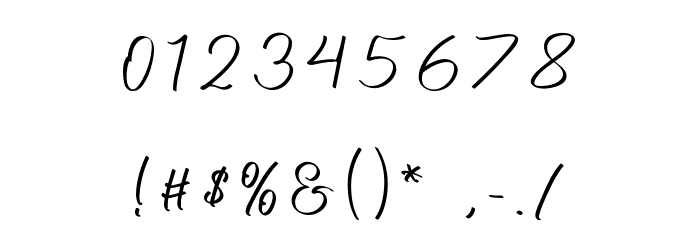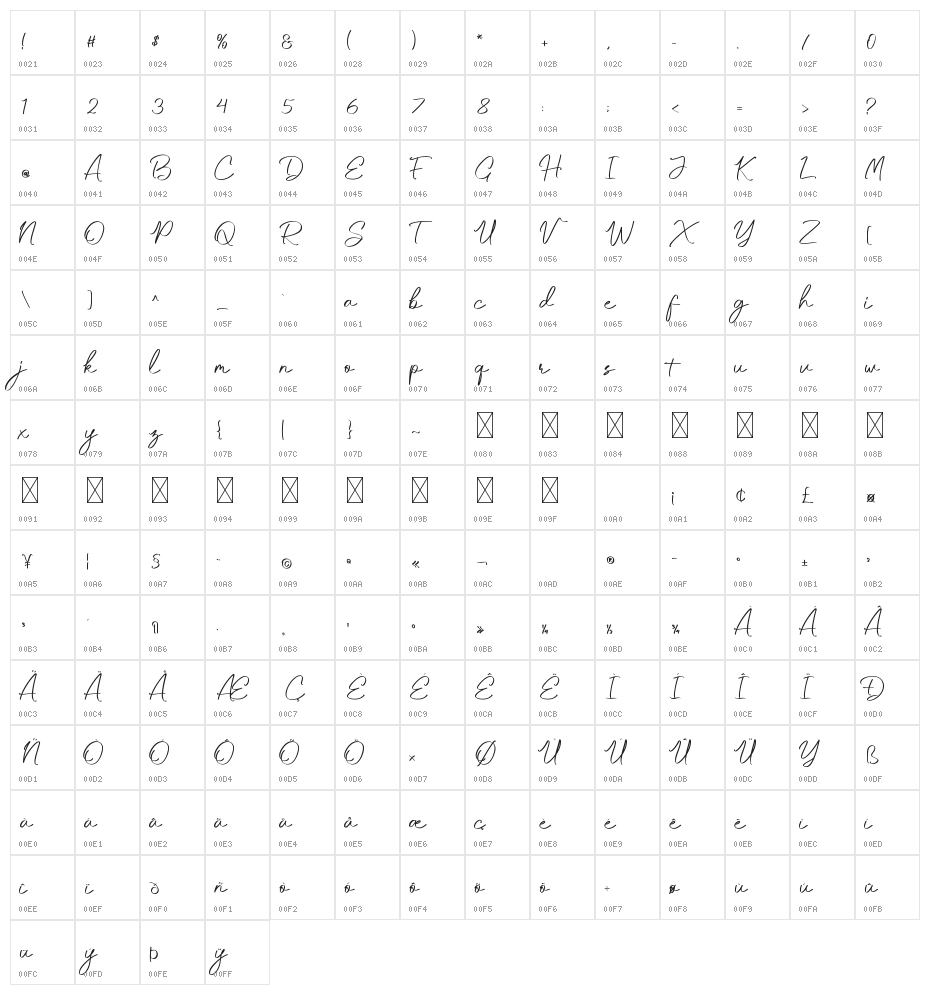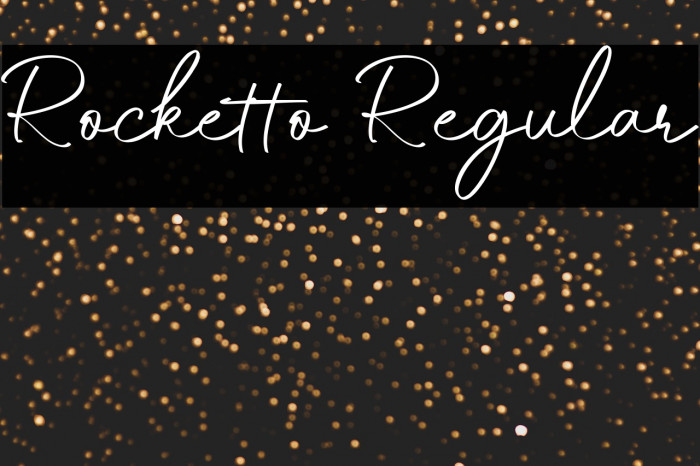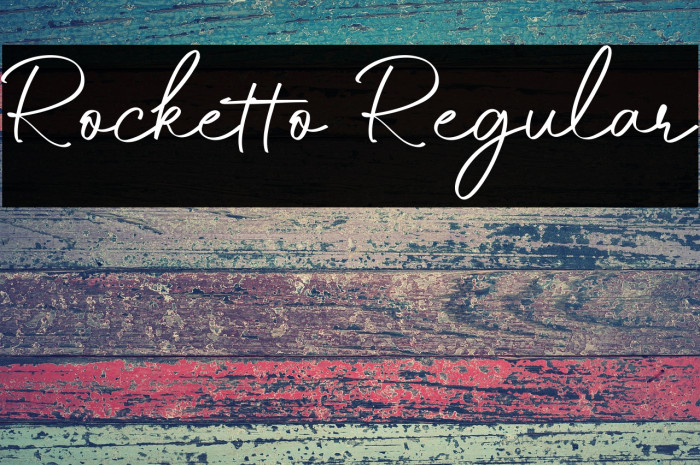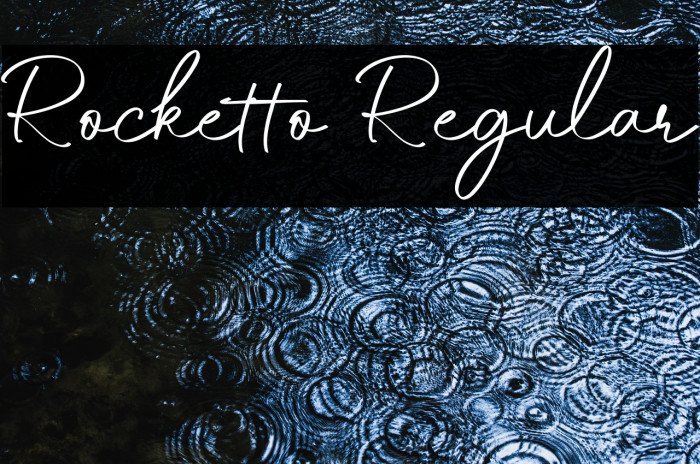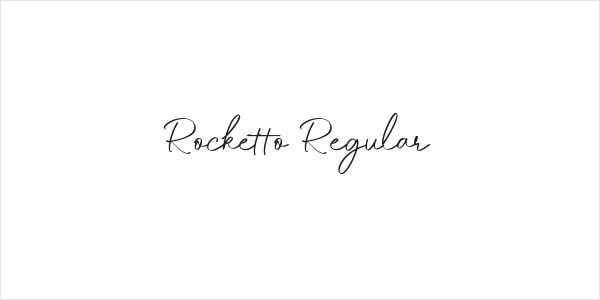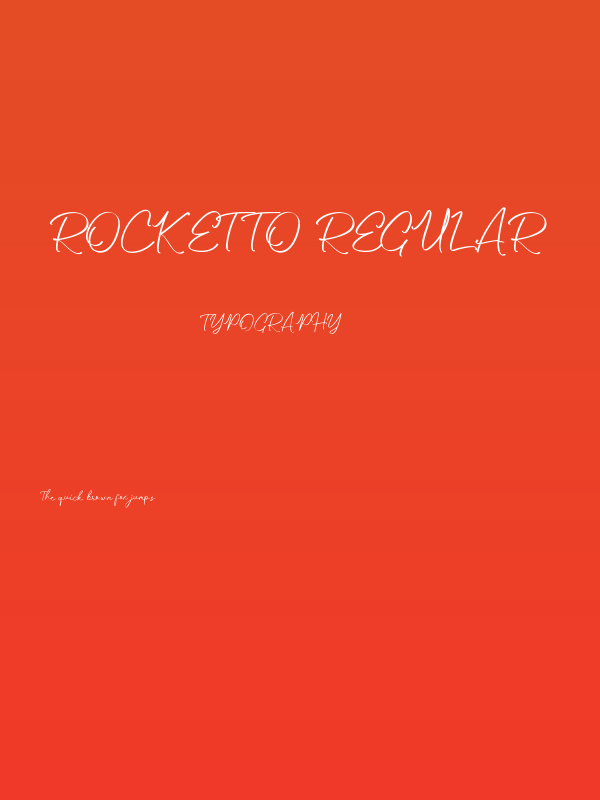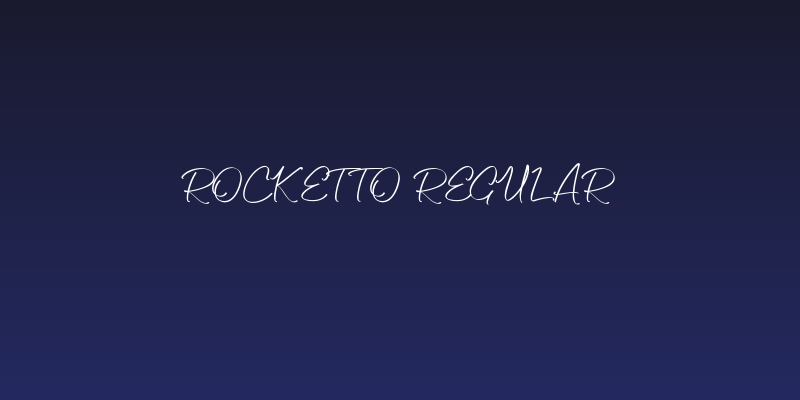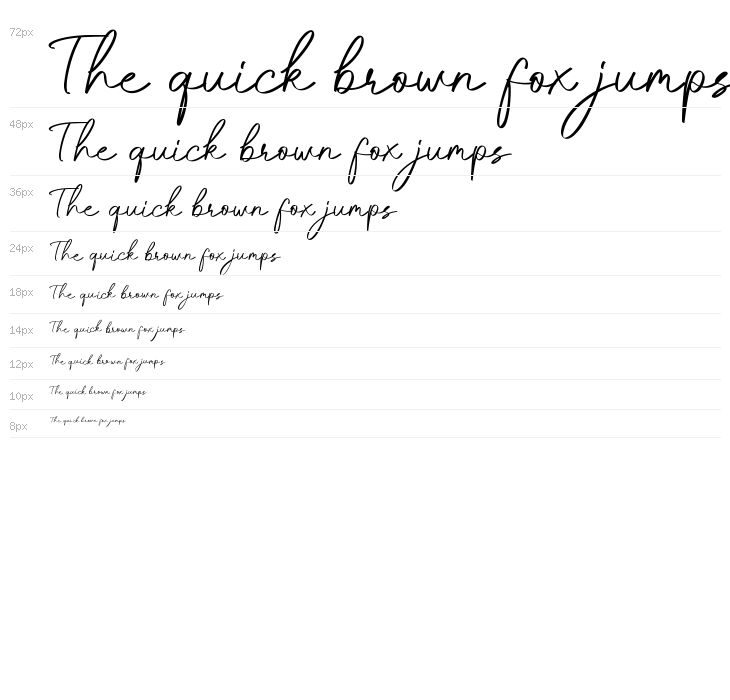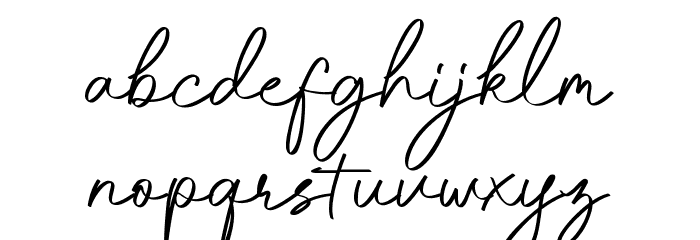
Rocketto Regular Font
Rocketto Regular Description
This font exudes a lively and elegant script style, characterized by its fluid, cursive strokes that mimic natural handwriting. The uppercase letters are gracefully elongated, while the lowercase letters maintain a consistent flow, enhancing readability. The numerals and special characters are designed with a similar flair, ensuring a cohesive look across all text elements. This font's delicate curves and loops give it a sophisticated yet approachable feel, making it suitable for a variety of design projects. Its overall appearance is both modern and timeless, offering versatility in its application.